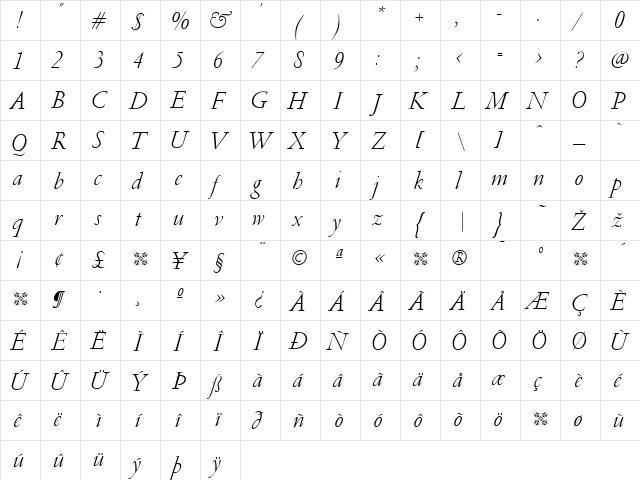
GaramondLight Italic
Design Context for GaramondLight Typeface
GaramondLight offers clean, dependable letterforms without strong stylistic allegiance, making it a practical choice for designers who need flexibility. The slanted form adds forward momentum and visual energy. The delicate stroke weight brings airiness and refinement to layouts.